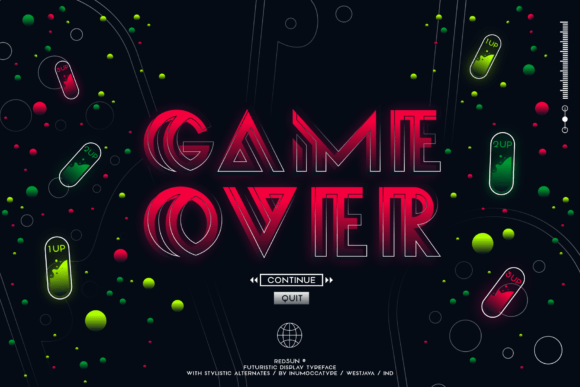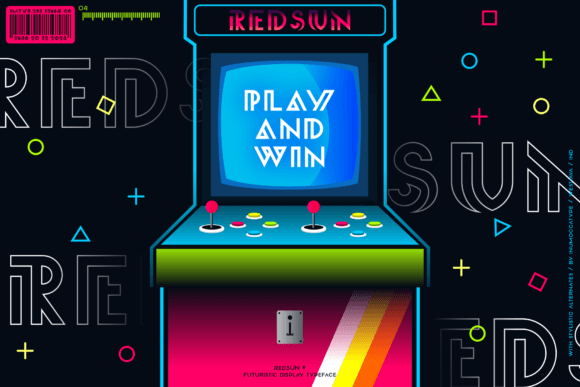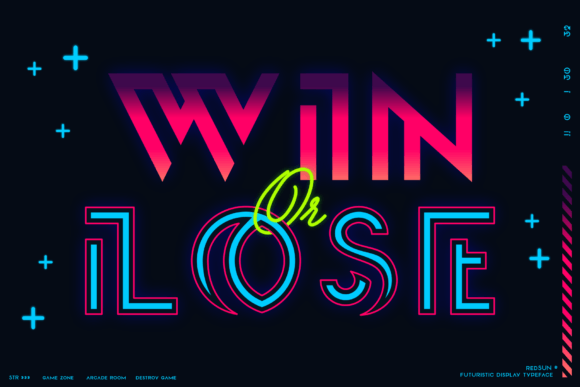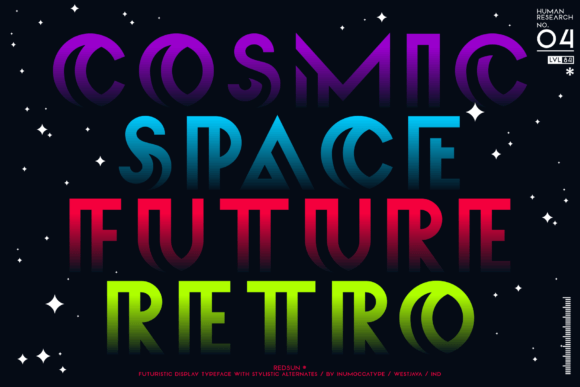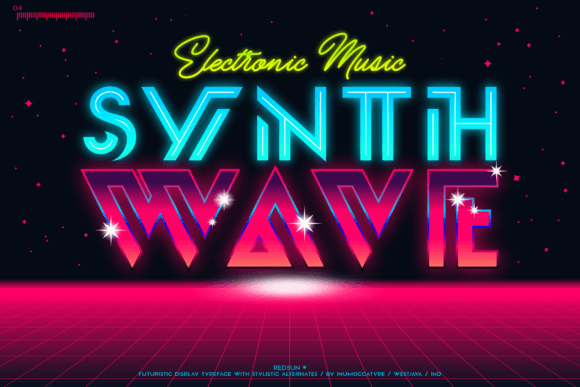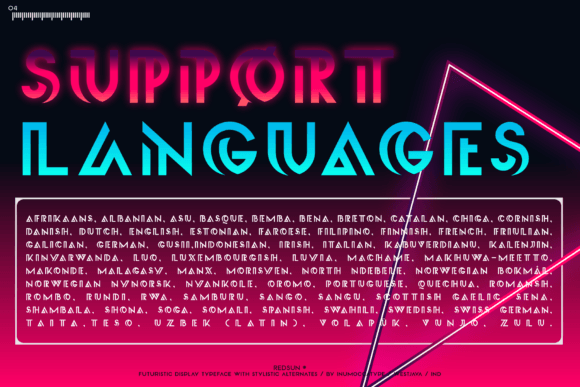
Introduction to Redsun Font
RedSun is a modern futuristic font.
This high-quality display font is inspired by neon designs It’s the perfect typeface for making game branding, game names, posters, magazines, branding, logos, and more.